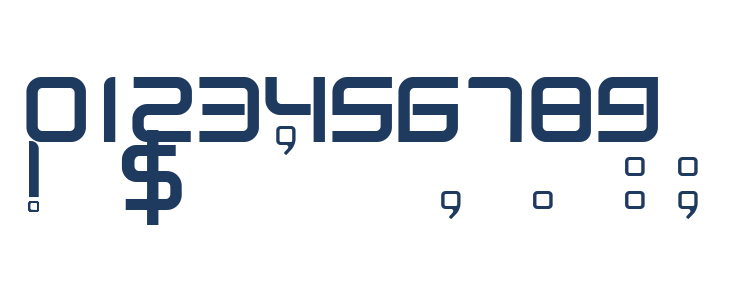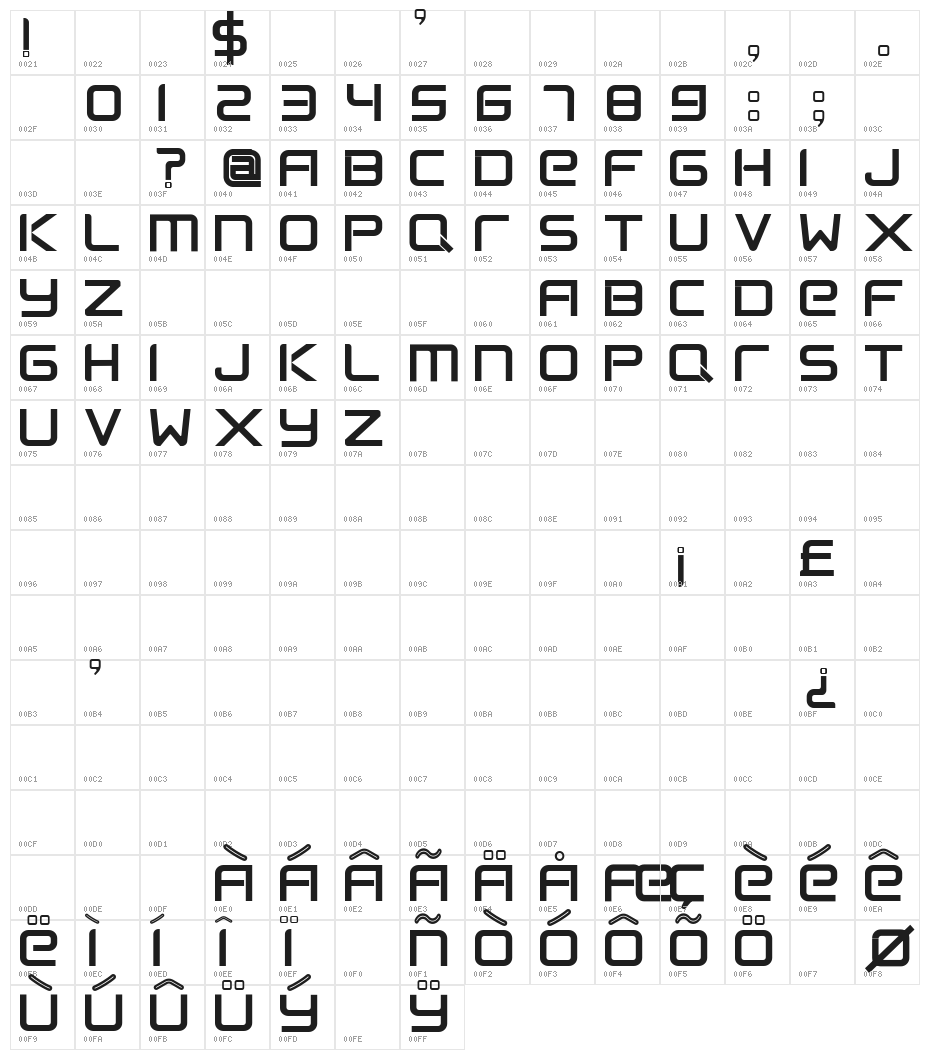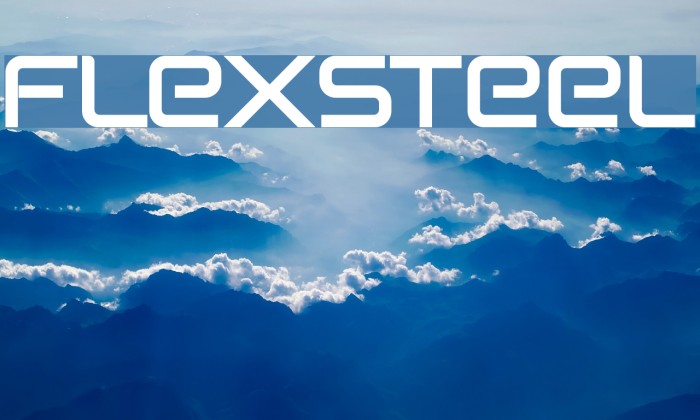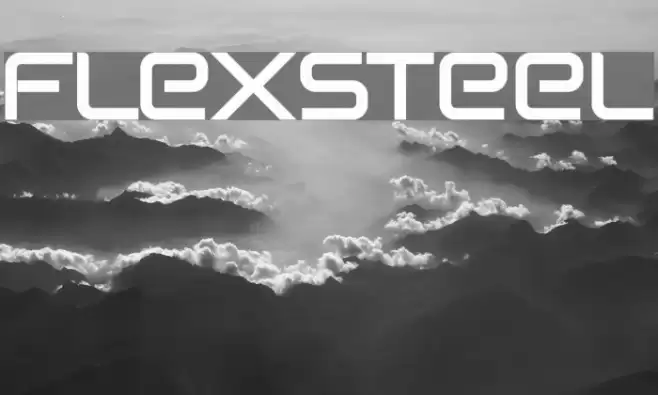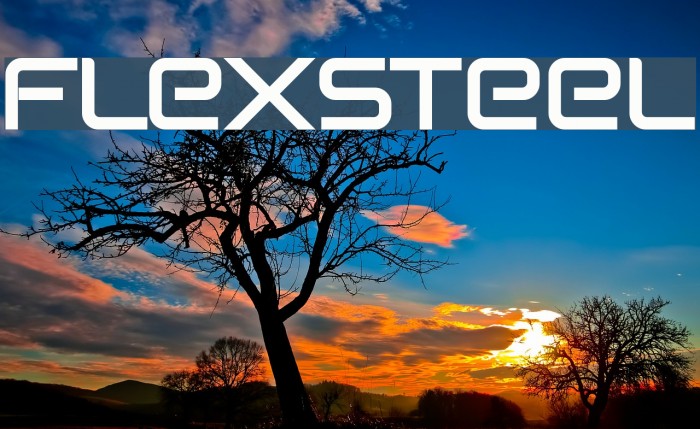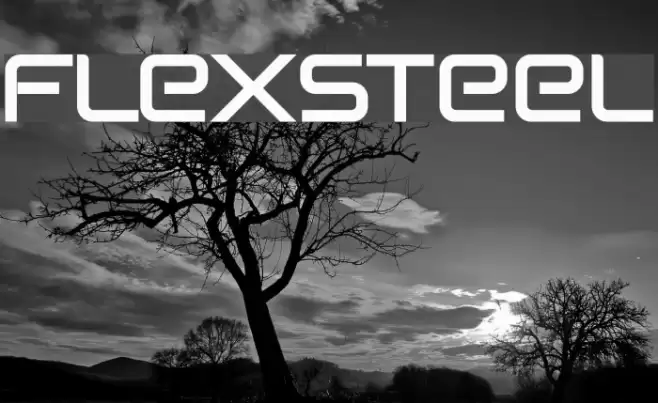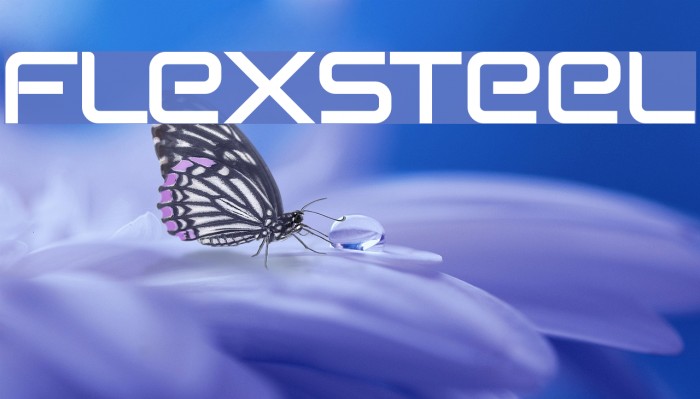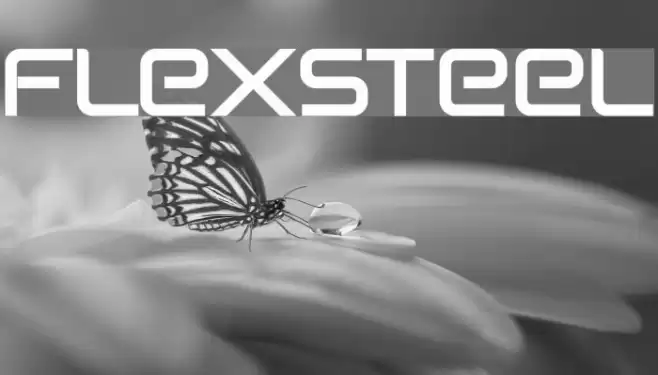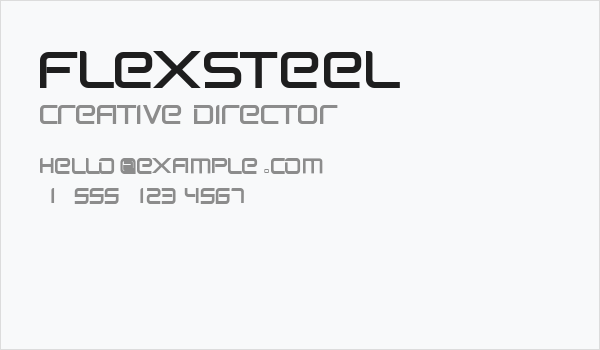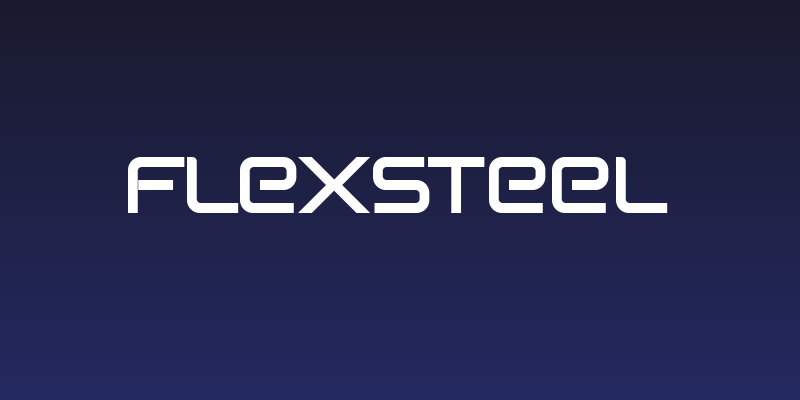
This font features a modern, geometric design with a futuristic flair. The characters are constructed with clean, straight lines and sharp angles, giving it a sleek and technical appearance. The uppercase letters are bold and uniform, while the lowercase letters maintain the same structural integrity, ensuring consistency across the typeface. The numerals are distinct and easily readable, with a similar angular style that complements the alphabetic characters. Special characters are included, maintaining the overall aesthetic. This font is ideal for projects that require a modern and innovative look.
| Proposed Projects | Ideal for technology branding, sci-fi themed projects, video game interfaces, and modern advertising. |